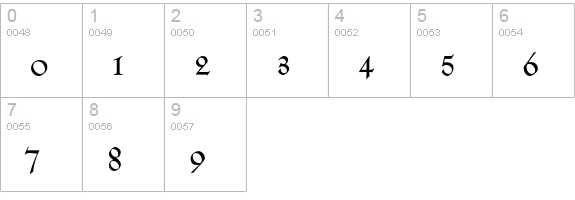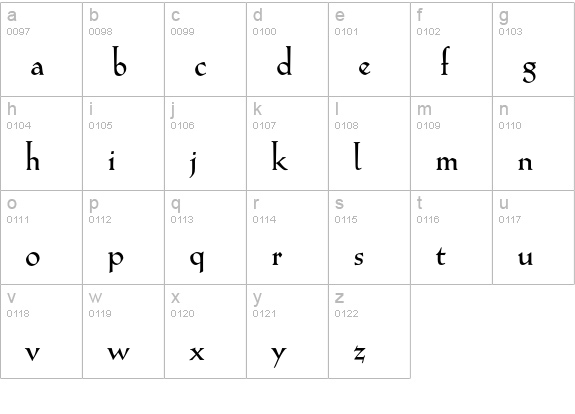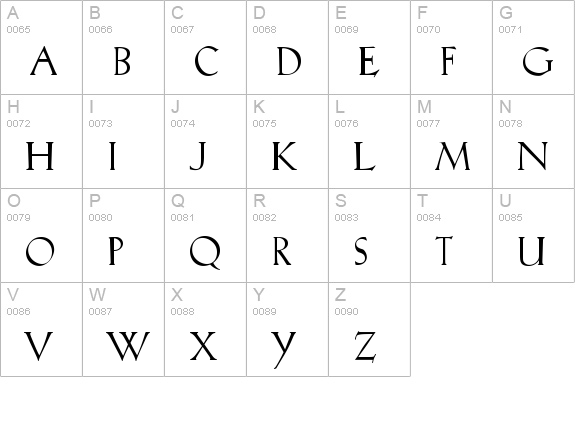
Kuenstler 165 Bold Font Details
Kuenstler 165 Bold is a strong, high-contrast variant in the Kuenstler typeface family \xE2\x80\x94 well suited to headlines, attention-grabbing titles, and strong calls-to-action.
Kuenstler 165 Bold font is a stunning display typeface that exudes elegance and sophistication. With its bold and commanding presence, this font is perfect for making a statement in any design project. The strong, clean lines and distinctive letterforms of Kuenstler 165 Bold make it a versatile choice for a wide range of applications, from logos to headlines to branding materials. What makes Kuenstler 165 Bold font even more appealing is that it is completely free to download at FontsMarket.com. This means you can access this high-quality typeface without any cost, making it a valuable addition to your font collection. Whether you're a designer looking to enhance your projects or a business in need of a distinctive font for your branding, Kuenstler 165 Bold is sure to impress with its timeless style and modern appeal. Download it today and elevate your designs with this exceptional font.